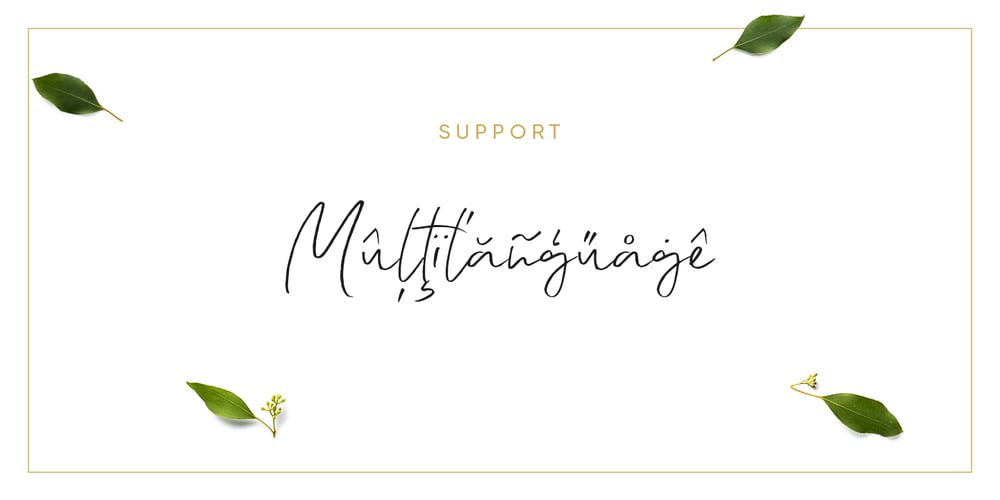
HM Lemonade
HM Lemonade font
HM Lemonade Font Family was designed by Anton Didenko and published by Kavoon. HM Lemonade contains 2 styles and family package options. Perfect for branding, weddings, presentations, posters, social media, product design, advertising. HM Lemonade Font includes over 50 ligatures to make everything look totally hand-done. WHAT YOU GET : HM Lemonade Script OTF + TTF files Upper + Lowercase Letters w/ alternates Numbers + Punctuation Languages Support 50+ ligatures